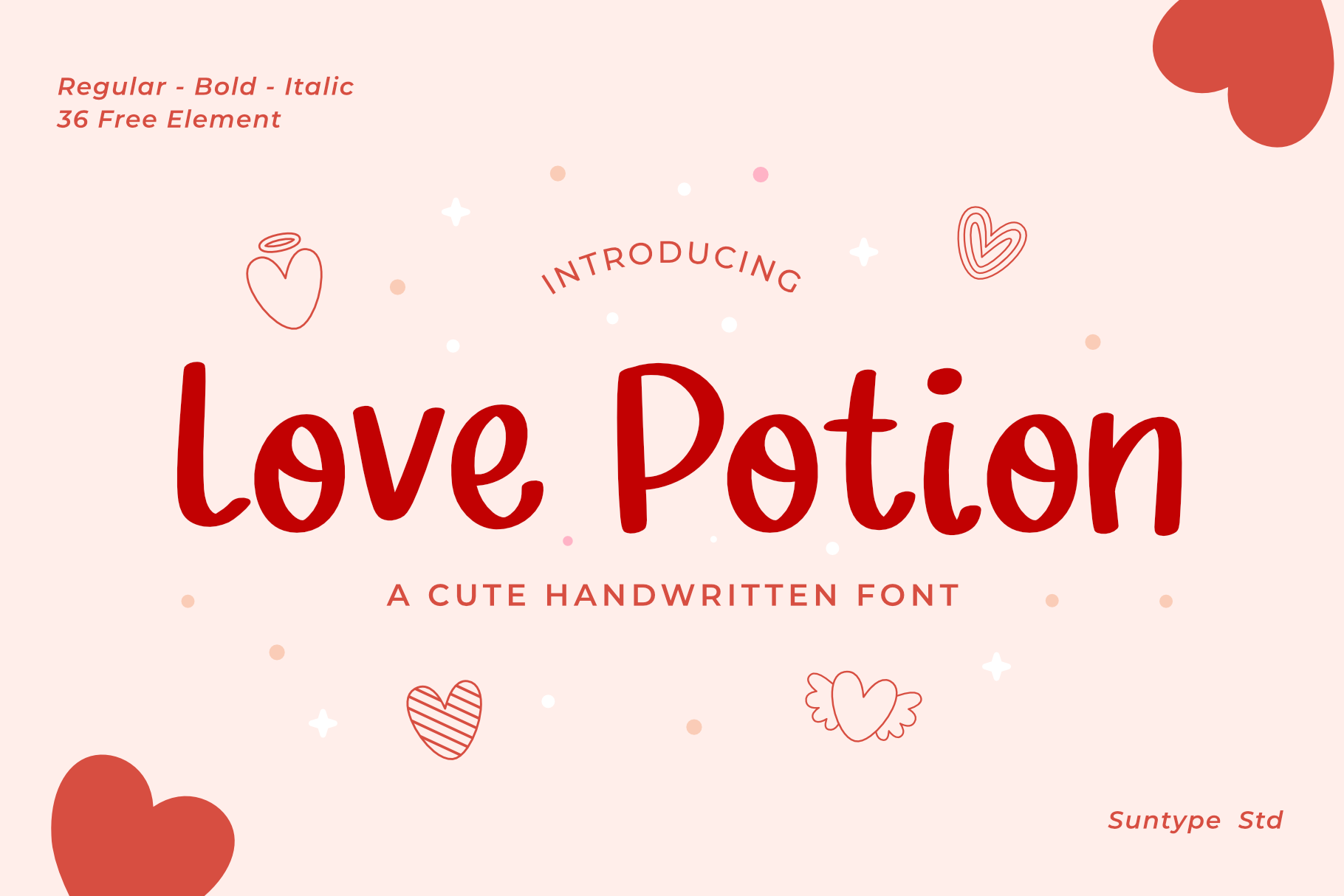
Love Potion Handwriting Font
Soft and inviting, our fonts create a sense of comfort and familiarity, making them perfect for a wide range of projects. Whether you're creating a logo, designing packaging for a children's product, or crafting social media graphics, our fonts will help you stand out from the crowd and leave a lasting impression.
- Standart alphabet (lowercase, uppercase and number)